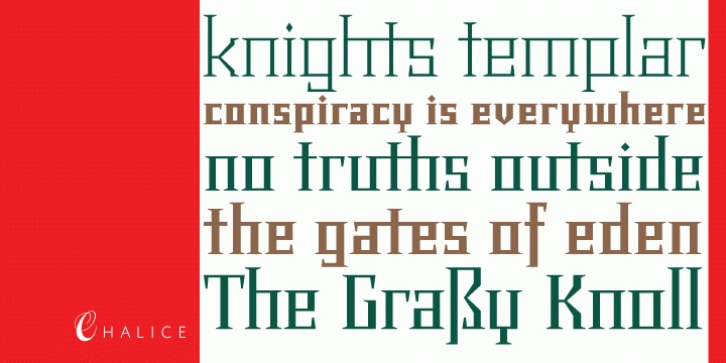
Chalice is a display serif font family. This typeface has four styles and was published by Canada Type.
Chalice is a new original Canada Type family inspired by two different engraving eras and locations: Medieval England and 19th century Russia.
Chalice’s construct is geometric at heart, though the wedge serifs and their contribution to the overall idiosyncrasies of the counterspace give it a spirit entirely different from usual geometric types. Chalice’s personality is that of a knowledgeable advisor, clinical yet old-fashioned, aware yet unsurprised, secular yet serene, clear yet artistic, hungry yet redeemable.
Chalice comes in 4 weights, light to black, that range in expression from a sobering wise whisper of confidence all the way to the bells and whistles of Judgment Day. Such flexibility in expression among the different weights of the same typeface of this kind is quite rare, and will be appreciated by discriminating graphic artists who require more than just another tombstone type.
Chalice’s character set comes fully loaded across all 4 weights. Two dozen alternates are built into the map, including unicase variations on the a and e, double-barred alternatives for A, E, F, H and S, and connecting versions of b, d, f, h and t. Such variety gives the user to subtly define the set type without overpowering it.